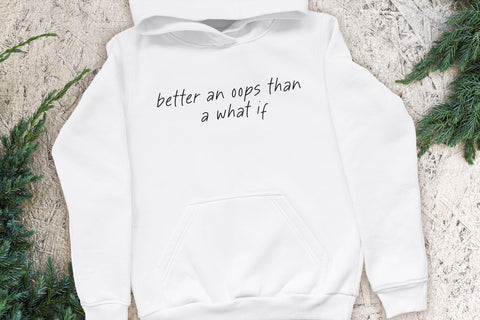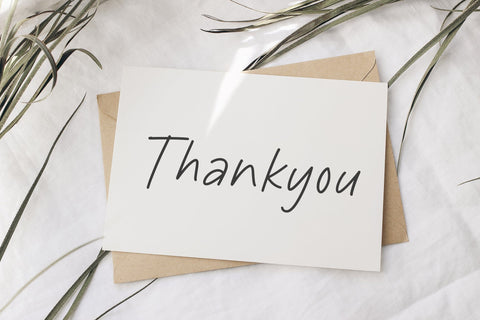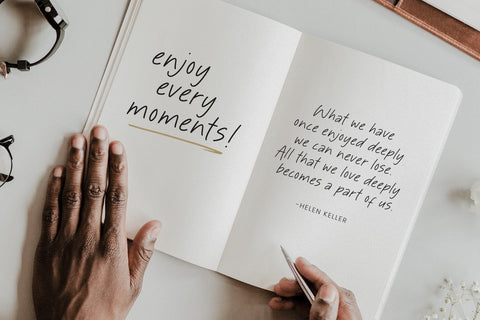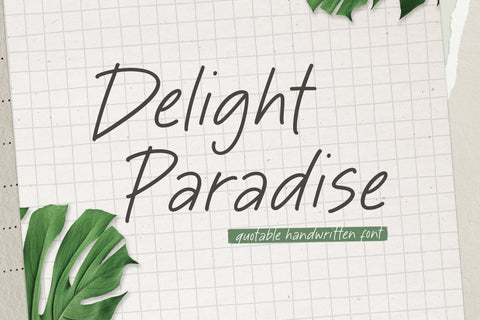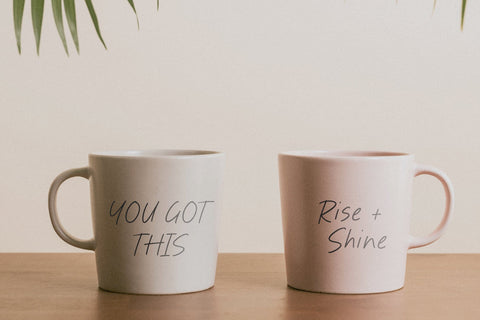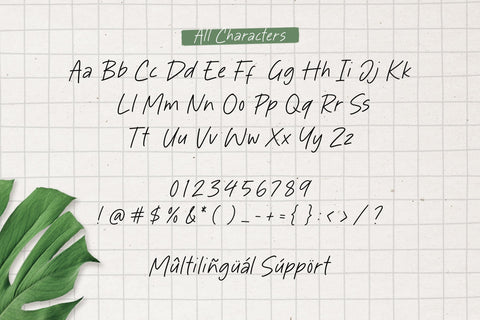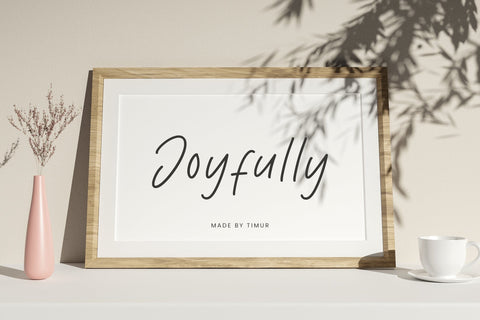
Delight Paradise - Handwritten Font
Delight Paradise - Handwritten font , which was created with great care and specially created for you
Smiley Hamster is perfect for product packaging, branding project, megazine, social media, wedding, or just used to express words above the background.